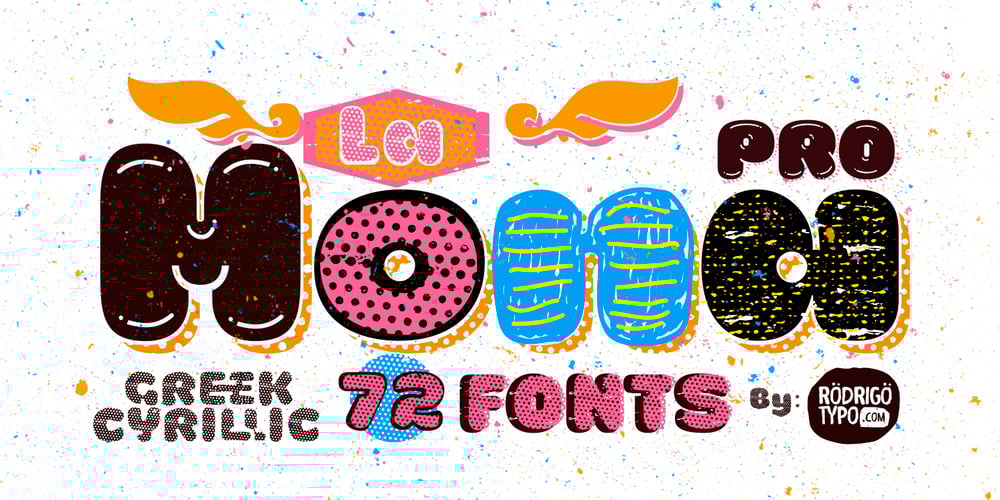
La Mona Pro Font Family was designed by Rodrigo Araya Salas and published by RodrigoTypo. La Mona Pro contains 72 styles and family package options. La Mona Pro is a redesign of the Mona 2012 design. Greek is case sensitive, as also the Cyrillic. La Mona Pro contains ligatures, ornaments, layers, shadows, swash alternatives (72 fonts) Play ๐